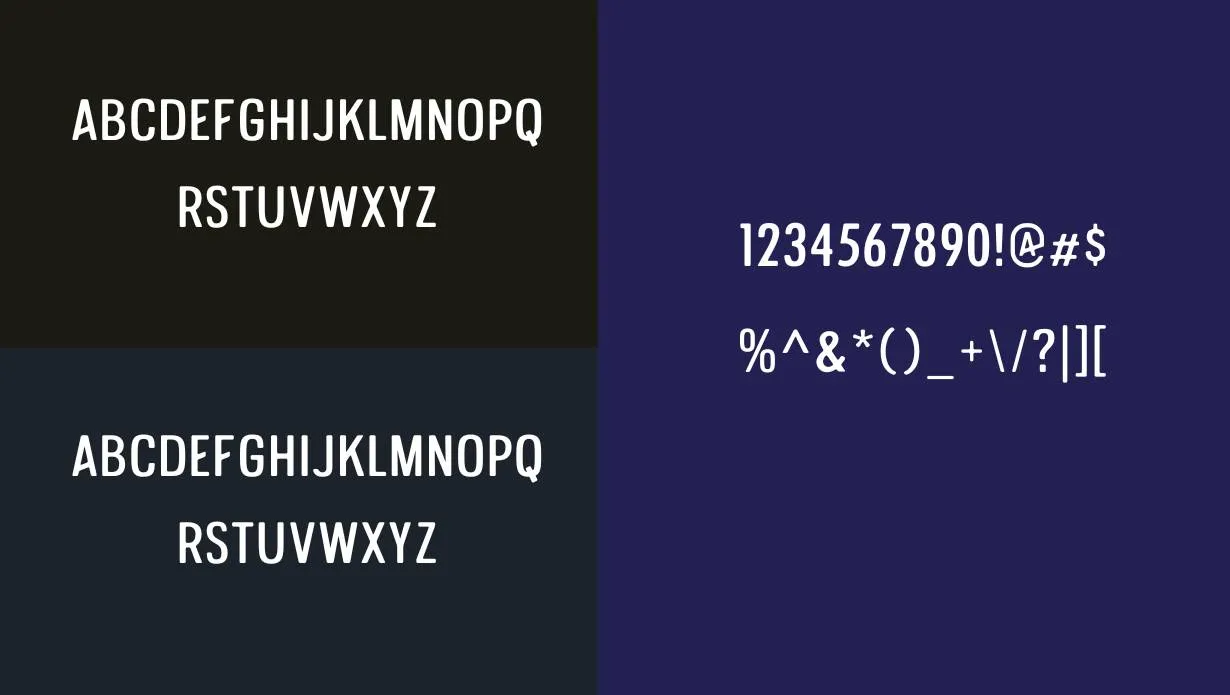
Hokyaa Font carries a playful and whimsical vibe, making it perfect for children’s books, creative posters, and vibrant designs. This font often supports file formats like OTF and TTF, ensuring its versatility across various design platforms.
| Name | Hokyaa Font |
| Designer | Arwan Sutanto |
Its cheerful and creative style adds a touch of joy and imagination to any design, making it lively and full of character. Hokyaa Font is a font that feels alive with its playful and imaginative essence, perfect for designs that seek to captivate and entertain.